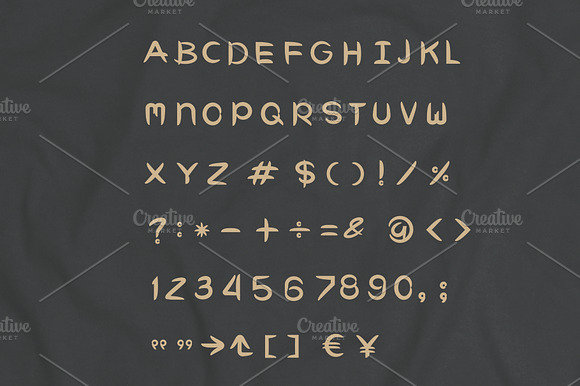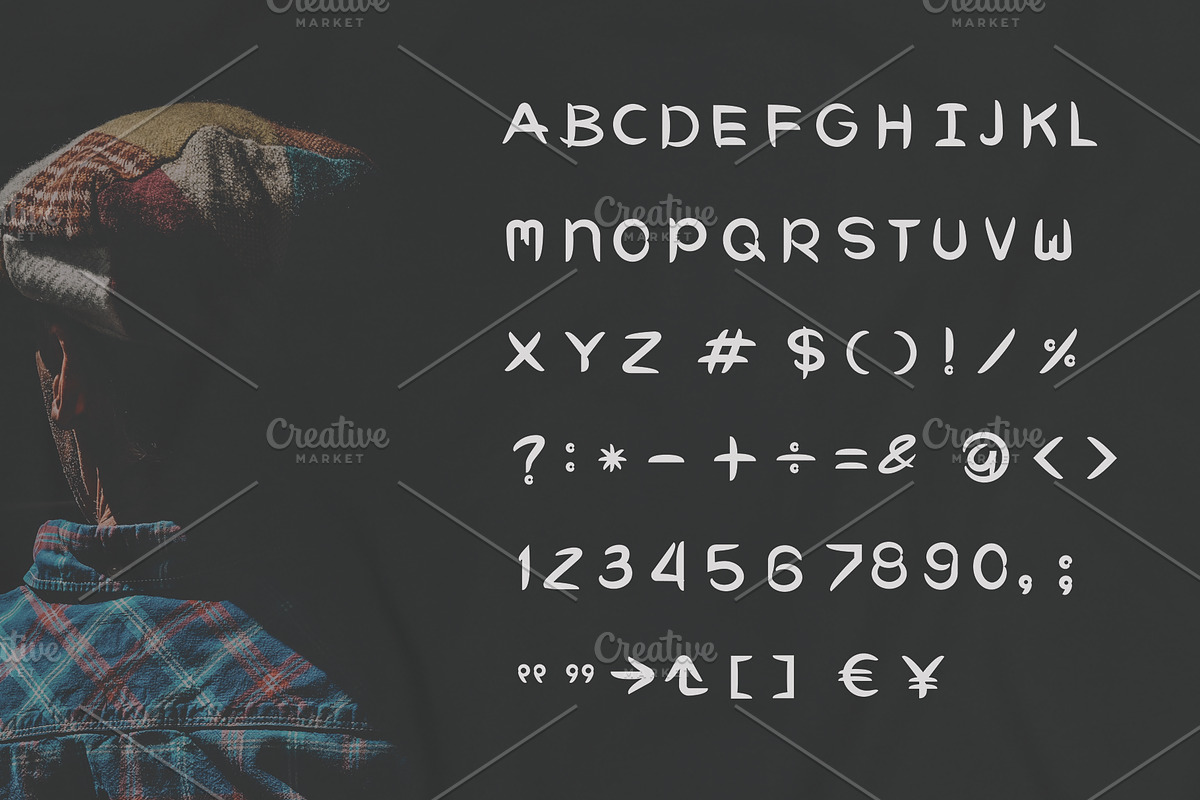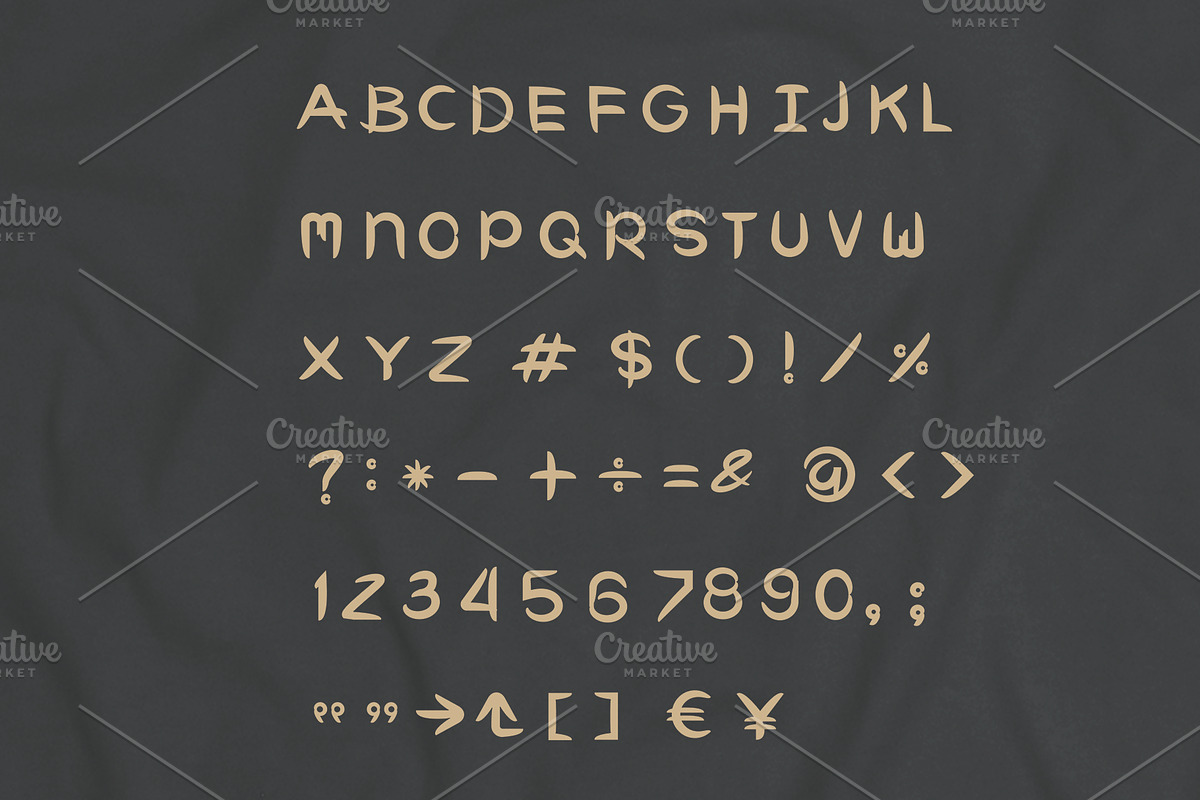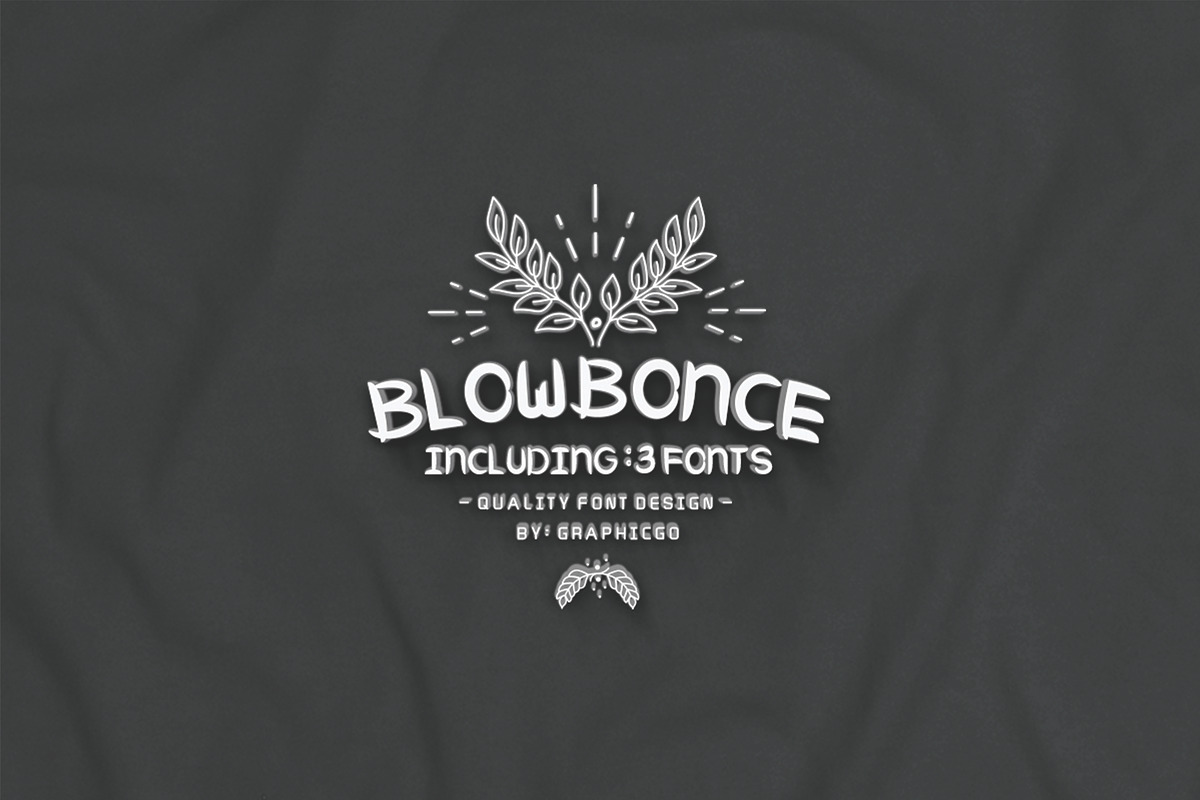
Blowbonce Font
Blowbonce is a smooth plus simple hand drawn font Youn can use it for t-shirt, logo, poster, packaging or invitation. It comes with
Why Blowbonce Font is worth a look
Blowbonce Font by Graphicgo fits naturally into Branding, posters, packaging, typography.